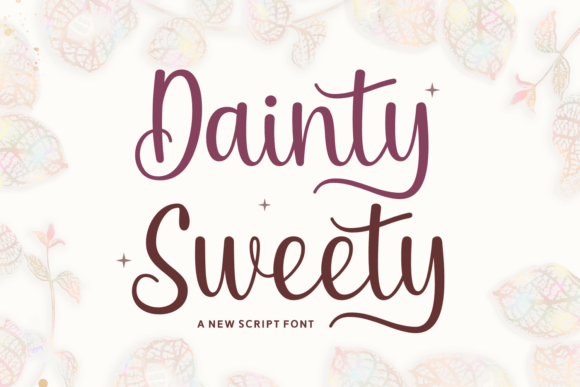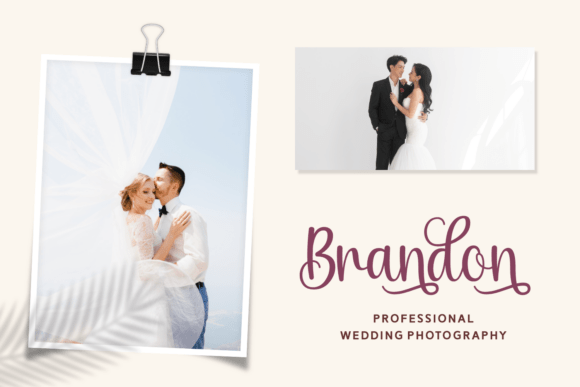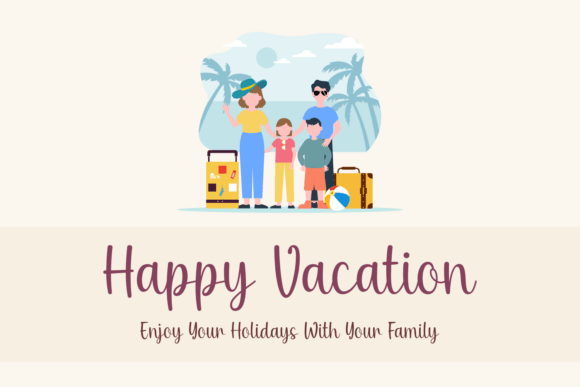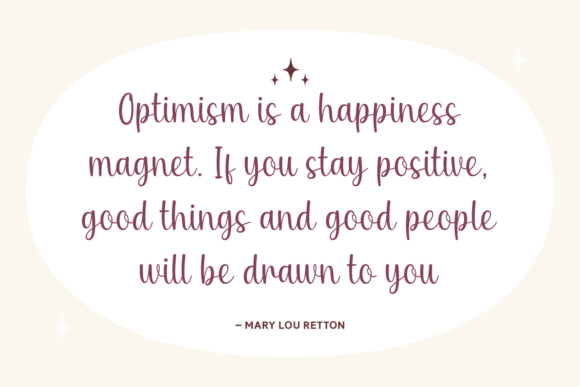
Dainty Sweety Font: Cute Script for Wedding Invitations & Playful Branding
About the Dainty Sweety Font
Welcome to the world of Dainty Sweety Font, a typeface that will inspire your next great project. Dainty Sweety is a charming script font that combines whimsical curves with sweet personality. With soft strokes, elegant swashes, and a touch of sparkle, Dainty Sweety is perfect for greeting cards, kids’ designs, packaging, and playful branding. It strikes a balance between youthful energy and stylish sophistication—making it a delightful choice for projects that call for warmth, friendliness, and a little dazzle.
Its whimsical nature makes Dainty Sweety ideal for projects requiring a lighthearted touch, such as children’s books, wedding invitations, or bakery branding. It also works well in short headlines and logos where its charming details shine. However, avoid using it for large blocks of text or UI elements; its delicate strokes can become difficult to read in smaller sizes or complex layouts.
For optimal visual harmony, pair Dainty Sweety with a clean sans-serif like Lato for a modern contrast, or a classic serif like Garamond for a touch of timeless elegance. A geometric sans-serif could also add a contemporary edge. Avoid pairing it with other script fonts, which might create visual clutter.
Dainty Sweety possesses a friendly, playful personality, yet retains a sophisticated undercurrent. It’s best suited for brands that wish to convey warmth, approachability, and a touch of magic.
Dainty Sweety Font Example